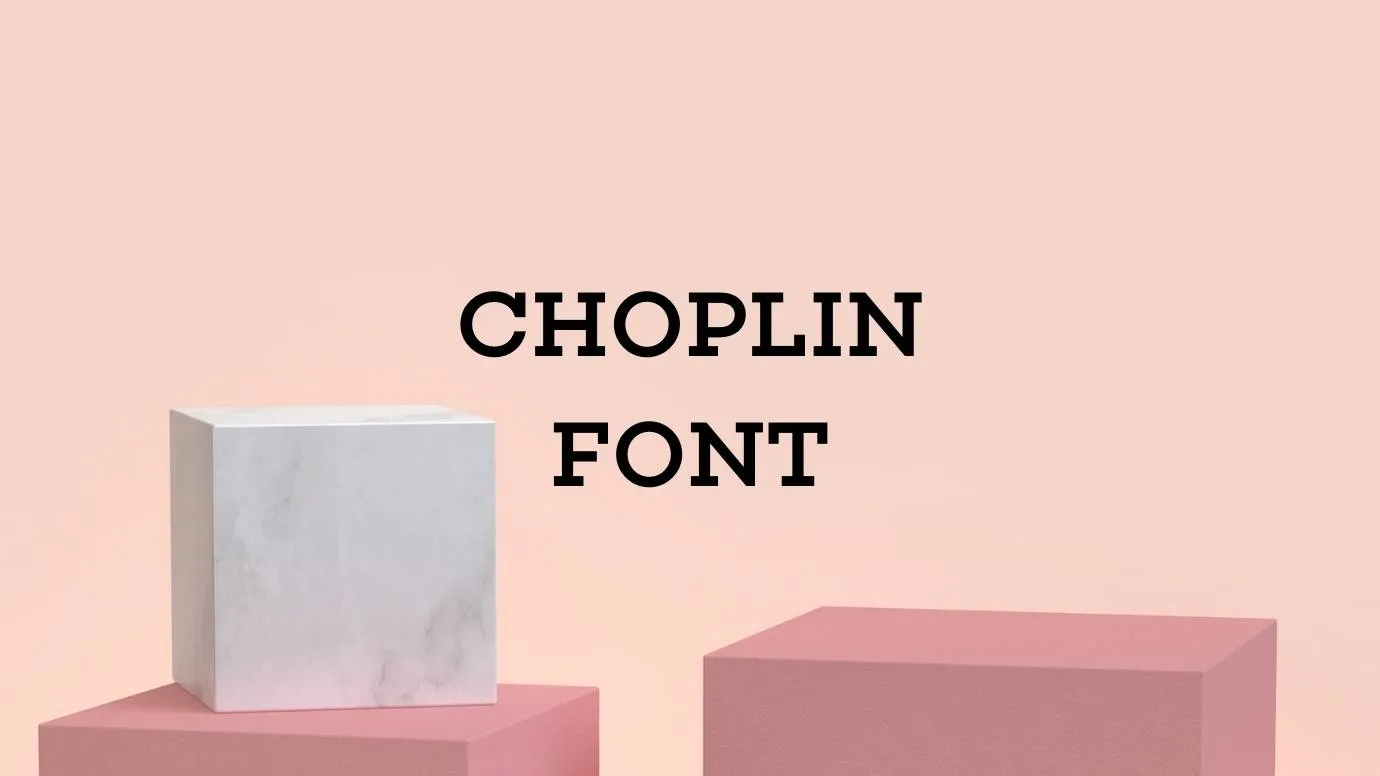
Choplin Font Family is a geometric slab serif typeface family that comprises a total of 8 weights including Regular, Italic, Bold, SemiBold, Light, Extralight, Book, and Medium. The textures of this typeface are very soft and smooth that is suitable for pairing functions.
This typeface has been inspired by the clarity and simplicity of the other dominant slab serif typeface namely Campton Font and the designer keeps the same features and styles that are available in Campton font in mind designed this astonishing typeface.
NameChoplin Font
DesignerRené Bieder
FoundryFontfabric
StyleSlab Serif
Date Released2014